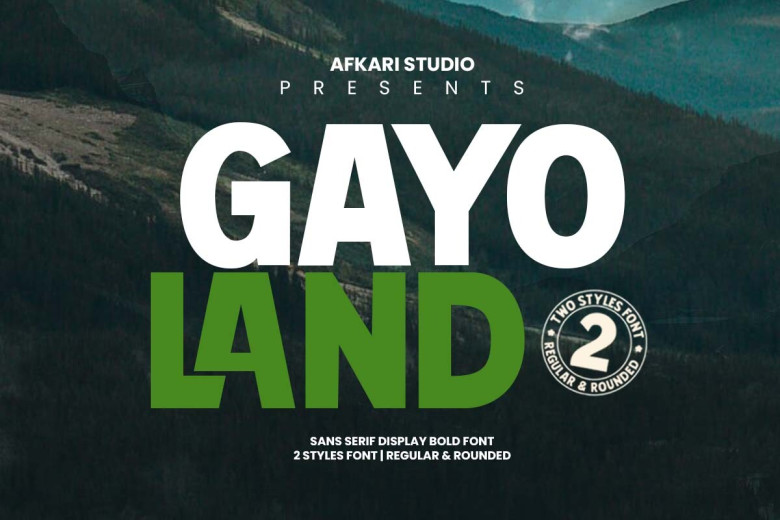
Gayo Land Font
Gayo Land Sans Serif Display Font has arrived! The Gayo Land Sans Serif Display Bold Font is an innovative typographical masterpiece created to elevate your projects by giving them an exuberant retro aesthetic. This unique typeface was specifically created to stand out and incorporates both classic sans serif characteristics with an eye-catching weight that demands attention.
Gayo Land combines modern design and retro impressions seamlessly, emitting a nostalgic feeling while remaining flexible enough for use across a range of applications. Striking letterstrokes exude confidence, making this font the ideal choice for titles, headings and logos that demand immediate attention.
Gayo Land’s signature bold and expressive style adds an unforgettable charm to any design, making sure that your message will not only be perceived but also remembered. Gayo Sans Serif display Bold Font is an ideal option for creating posters, websites, branding projects and logos, among other creative ventures, that want an impactful and eye-catching visual impact.
Take yourself back in time while seamlessly merging it into modern design world. Build upon your typography skills while also giving designs classic elegance through this versatile font!
Gayo Land Sans Serif Font